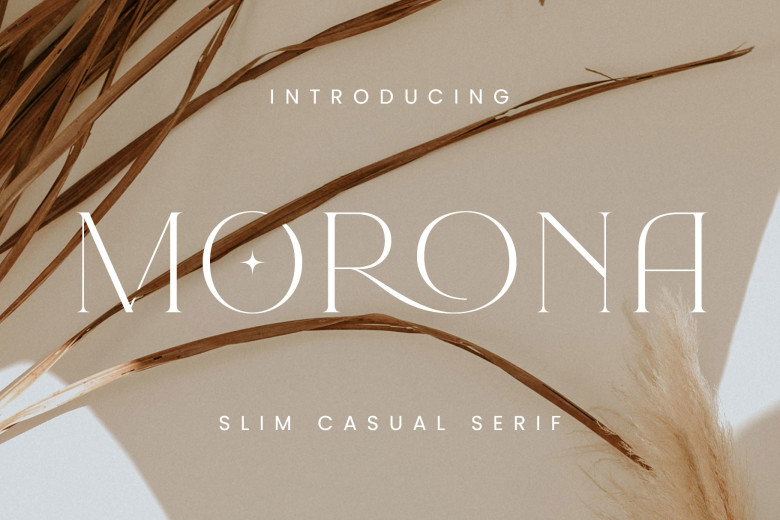
Morona Font
Morona features an elegant and chic serif Font, perfect for creating stunning projects. Its simple yet minimal design makes this font perfect. Furthermore, this font comes equipped with many special characters for impressive results.
Morona includes an array of ligatures to help you craft beautiful posters, cards and packaging designs.
Morona Serif Font